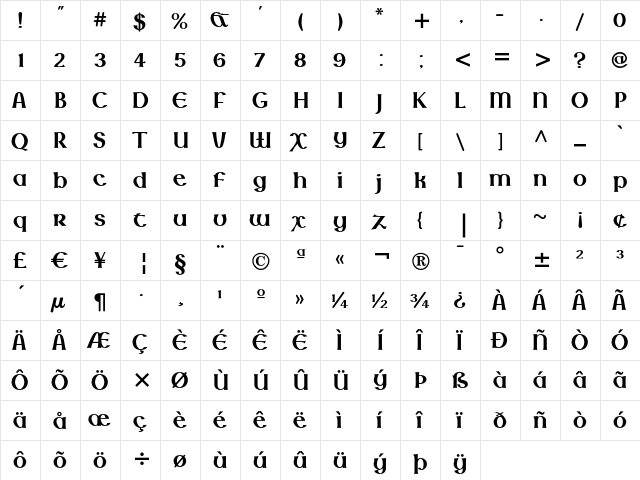
Lindisfarne Nova BT Regular Font Preview
Lindisfarne Nova BT Regular
Design Context for Lindisfarne Nova BT Typeface
Lindisfarne Nova BT is a composed and adaptable typeface that performs quietly and consistently across a wide range of design contexts.